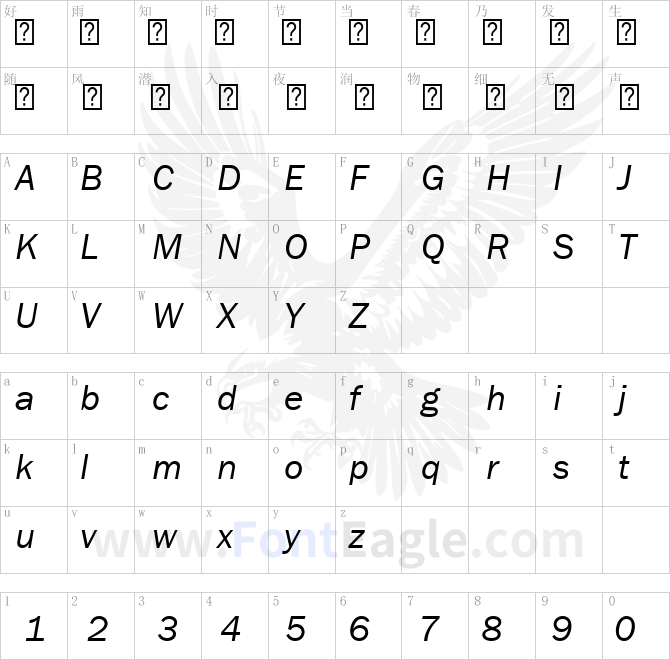
- Font name:ITCFranklinGothic LT Com BkIt
- Font Subfamily ID:Linotype GmbH:ITC Franklin Gothic LT Com Book Italic:2006
- Font Full Name:ITC Franklin Gothic LT Com Book Italic